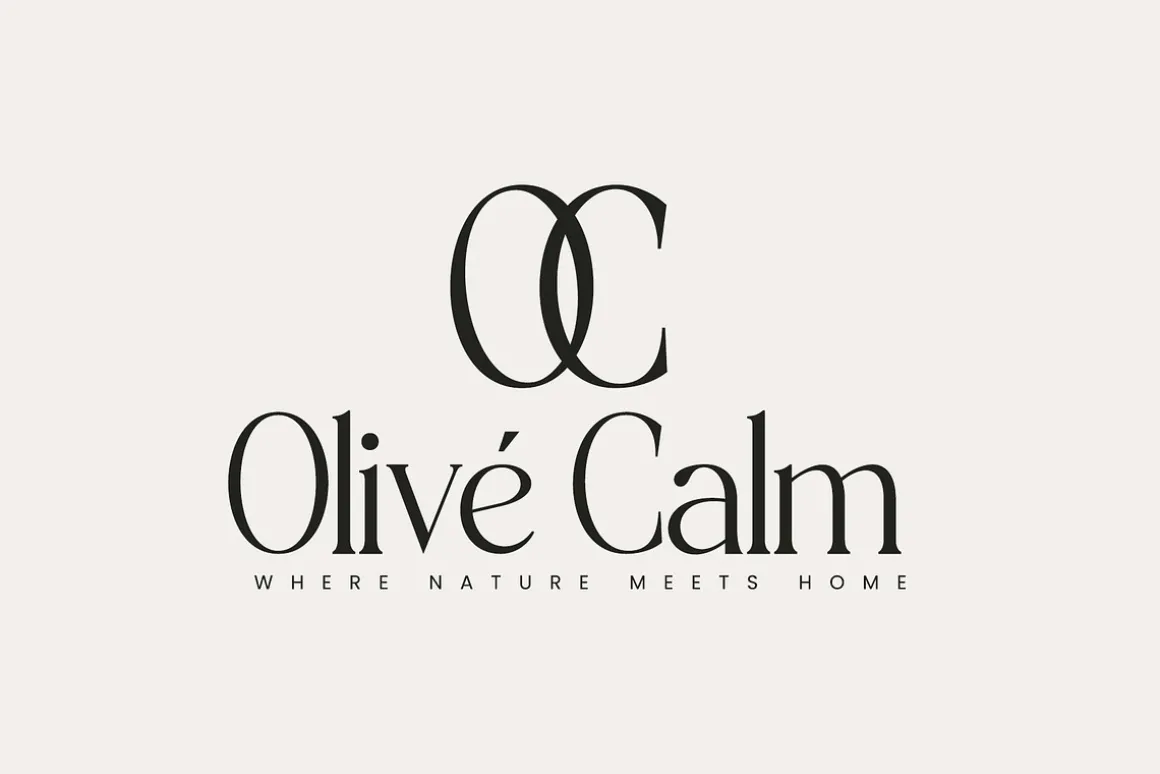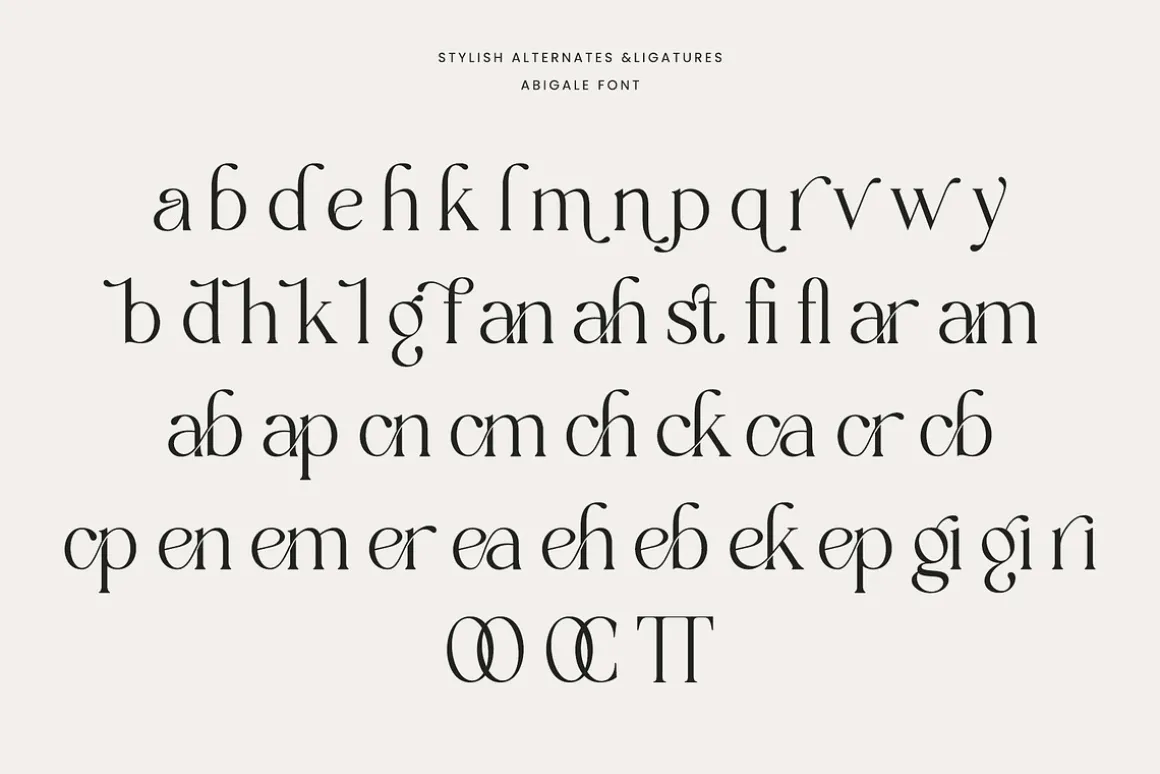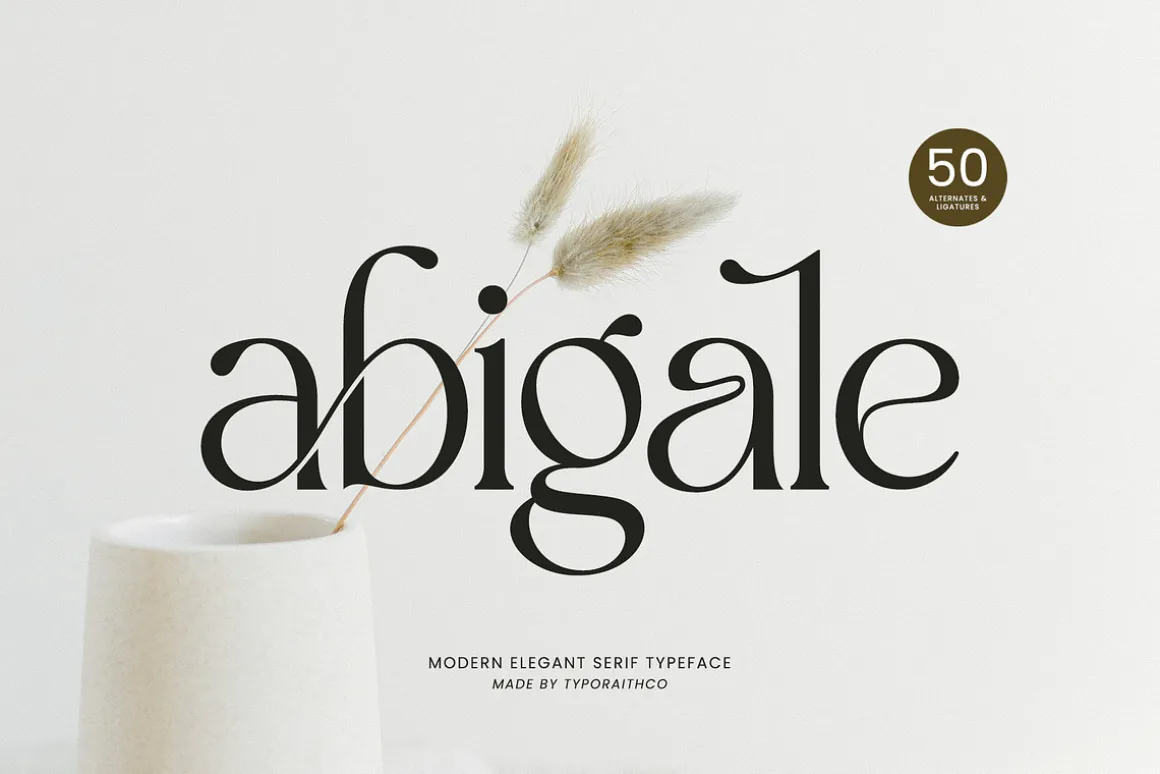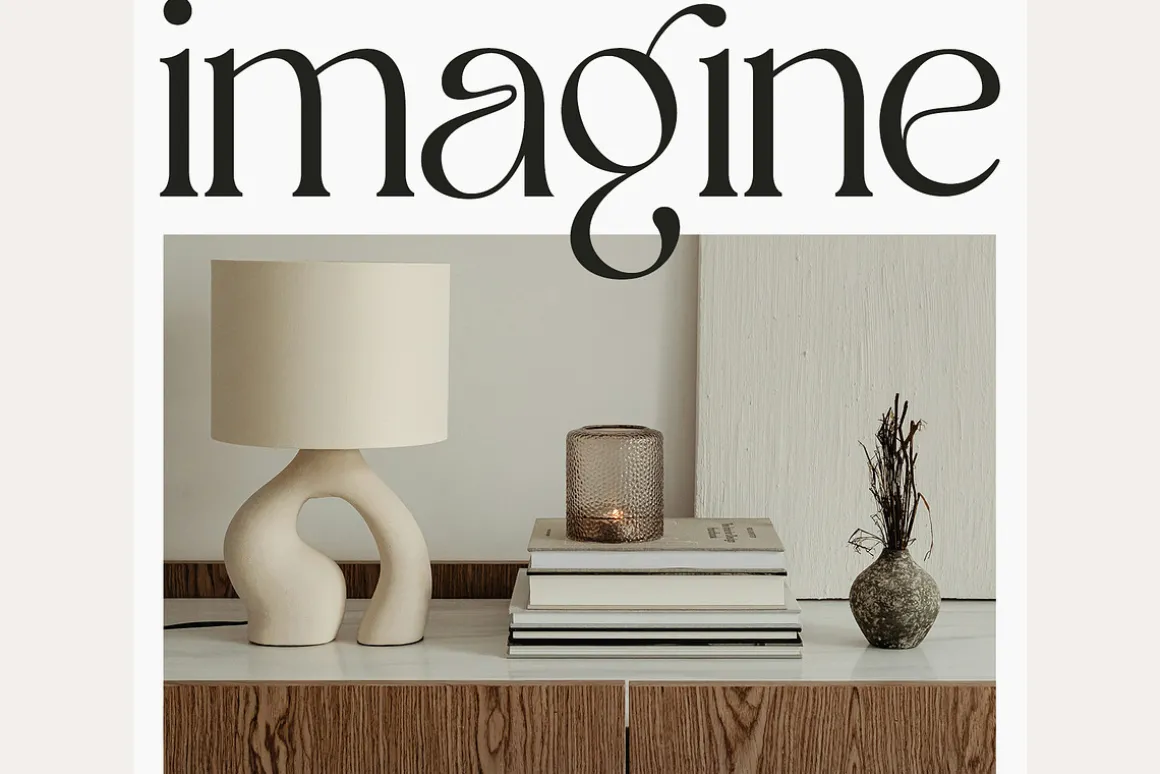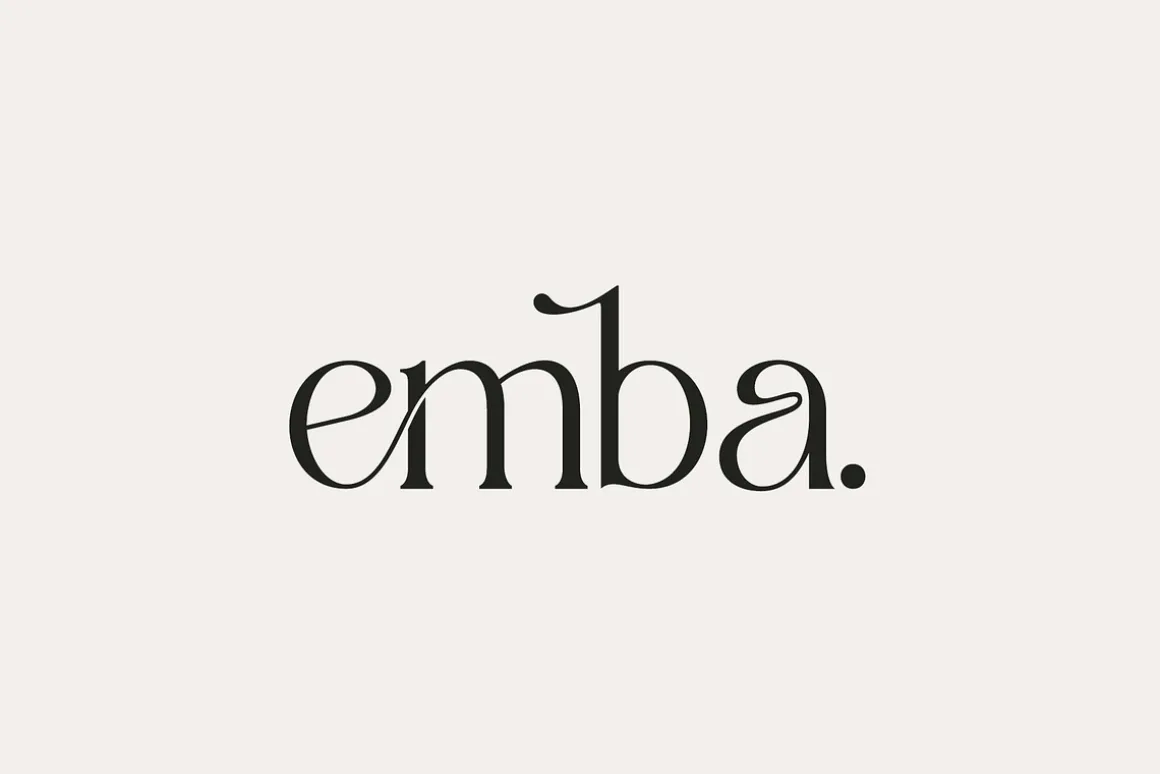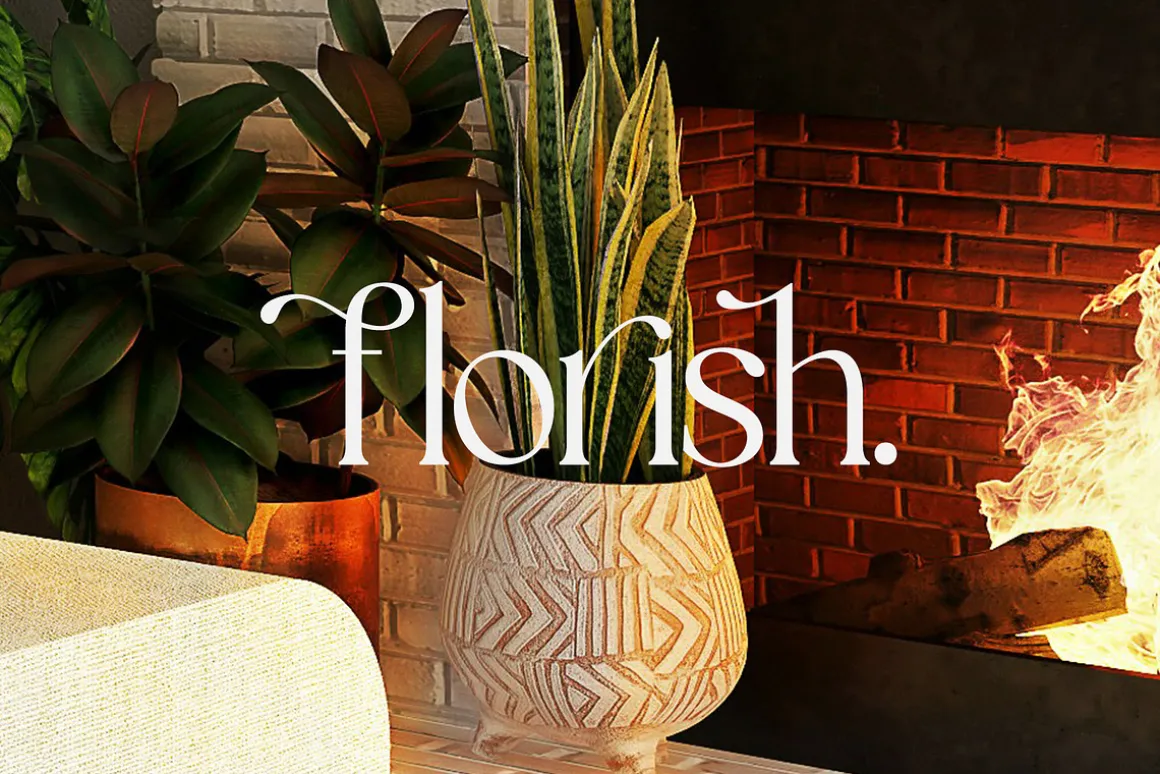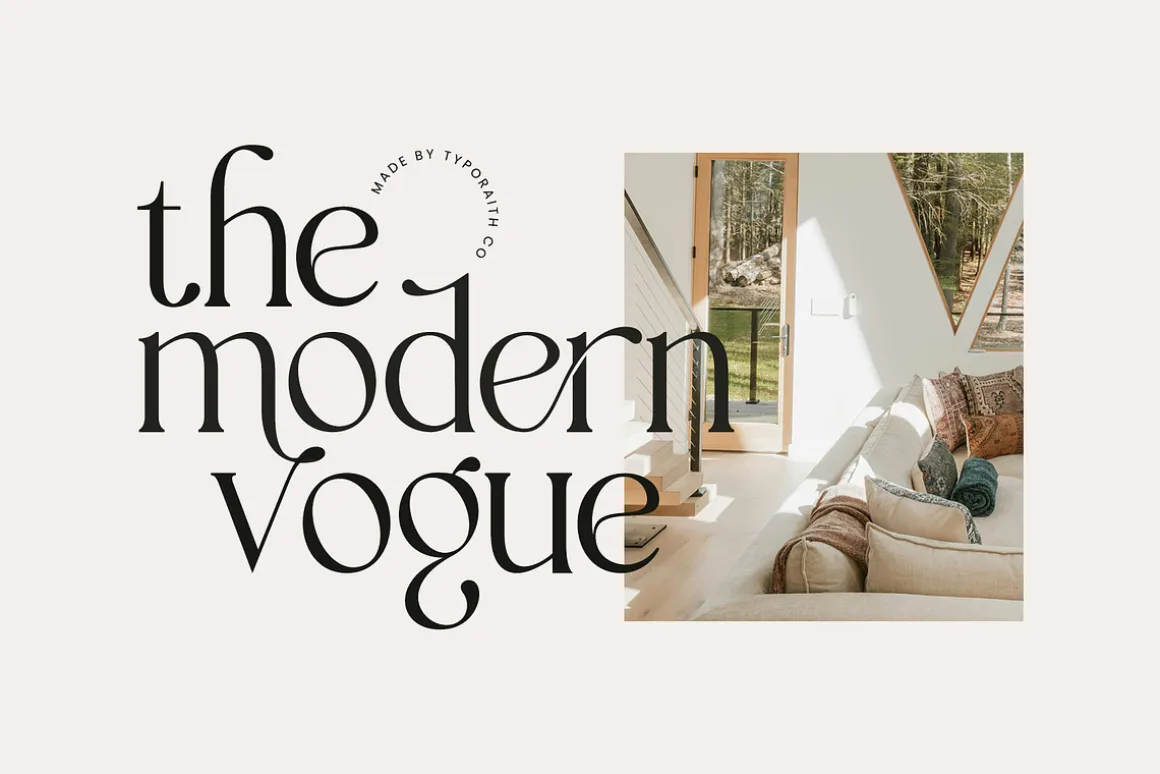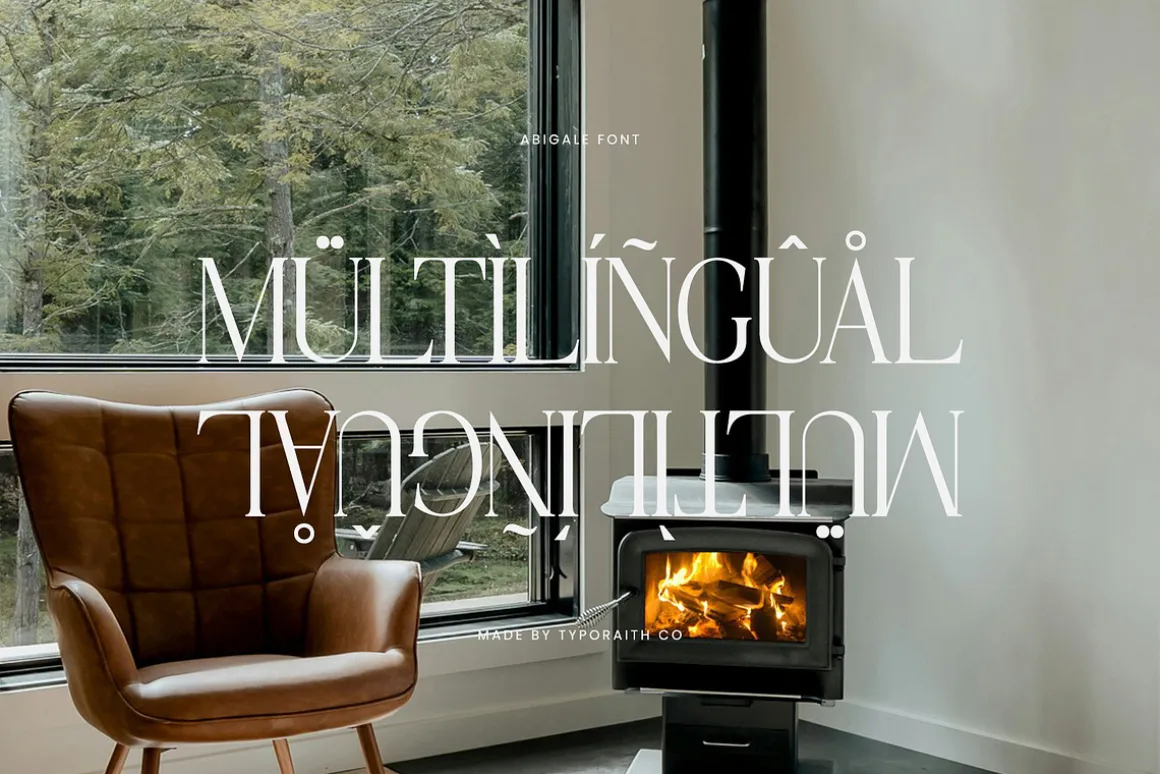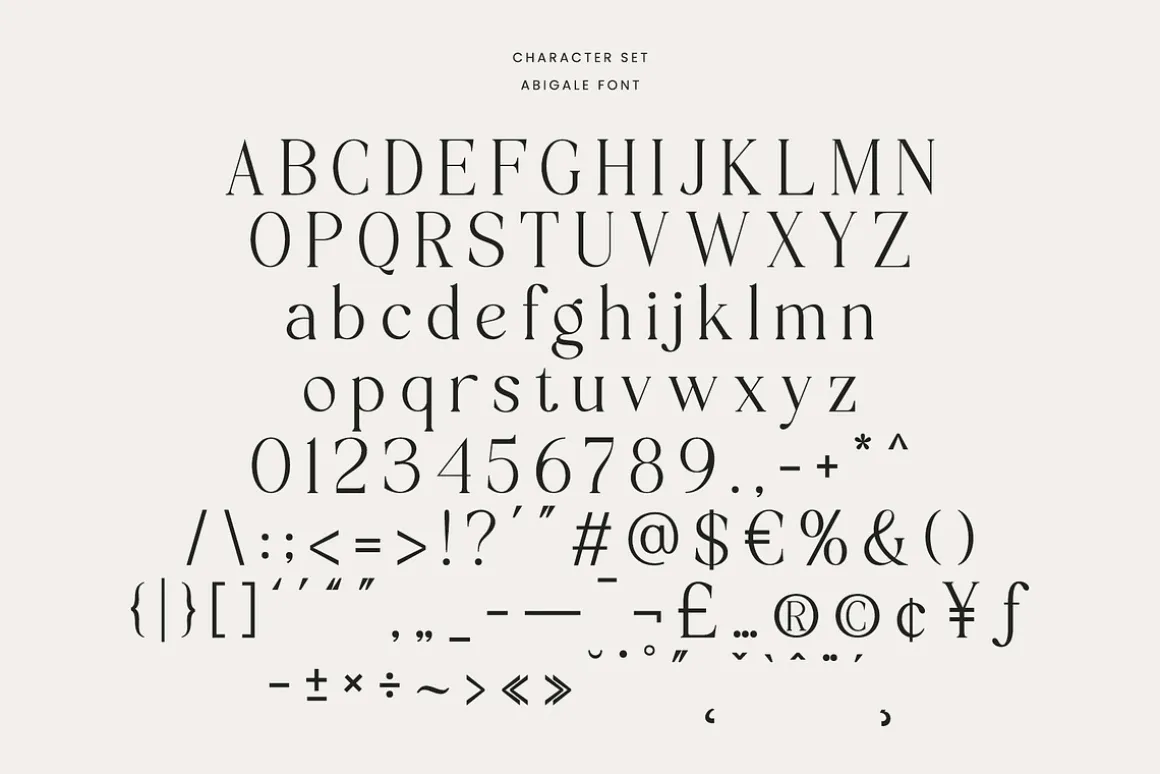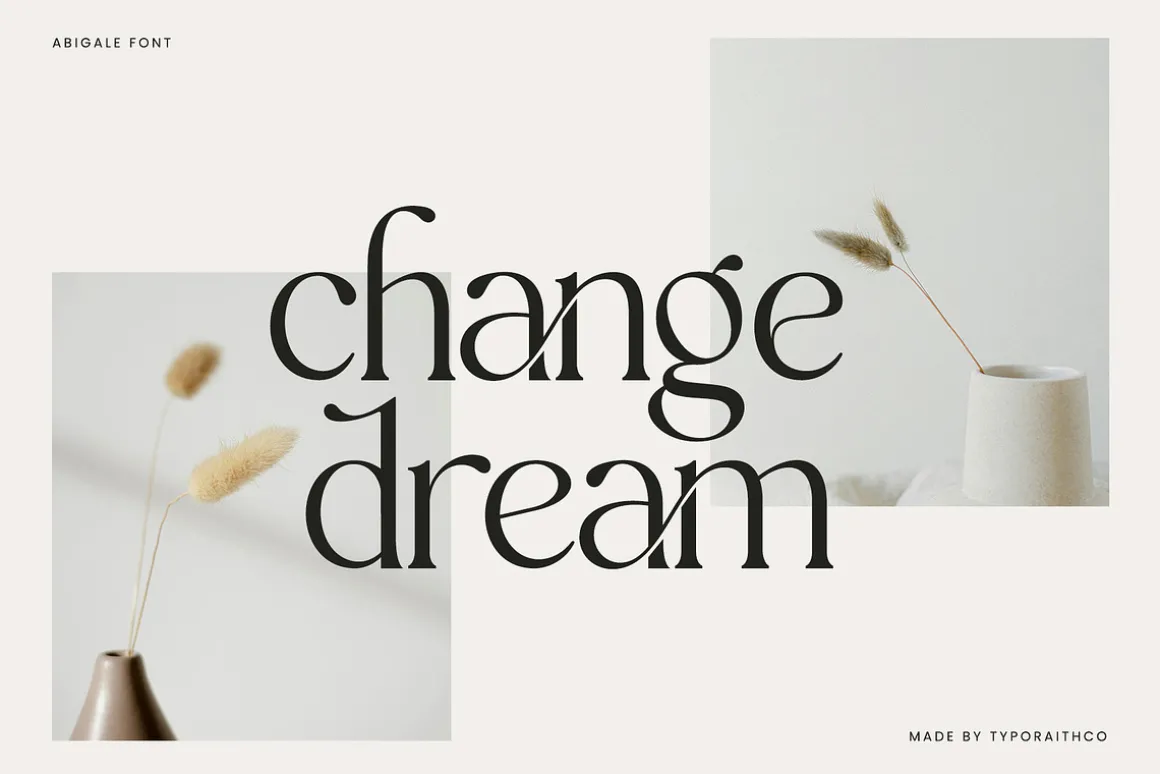
Abigale is a modern elegant serif typeface that blends sophistication and charm in every curve. Designed with graceful contrasts and unique ligatures, Abigale adds a luxurious touch to your design projects. Perfect for editorial design, branding, logos, invitations, and packaging, this typeface brings a timeless yet contemporary feel.
Featuring over 50 alternates and ligatures, Abigale allows you to craft personalized typography compositions that stand out beautifully in both digital and print design.
- 50+ Alternates & Ligatures
- Multilingual Support
- Numeral & Punctuation
Perfect for:Logos, Magazines, Branding, Wedding Invitations, Posters, Product Packaging, and Editorial Layouts.